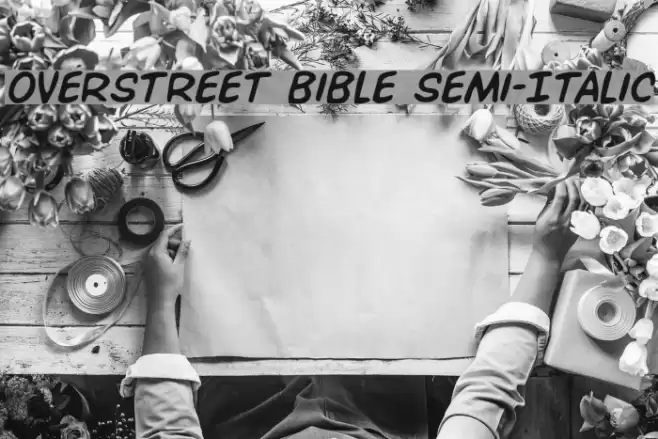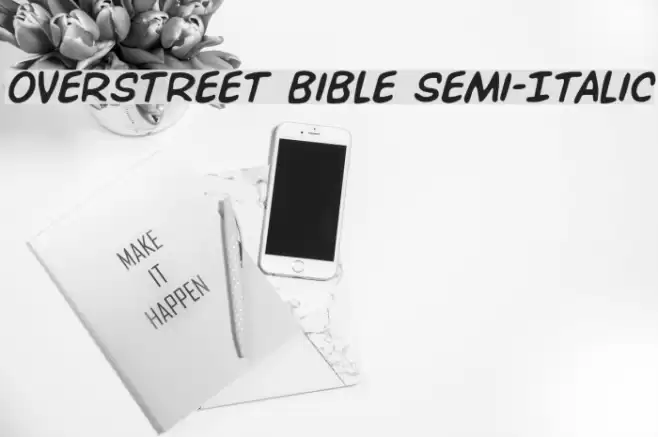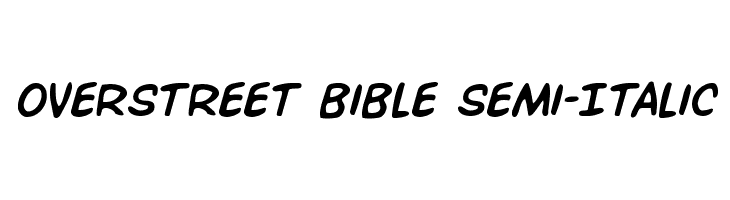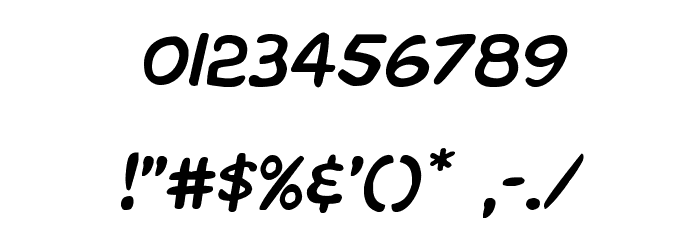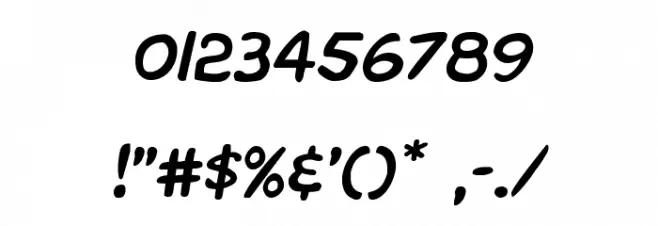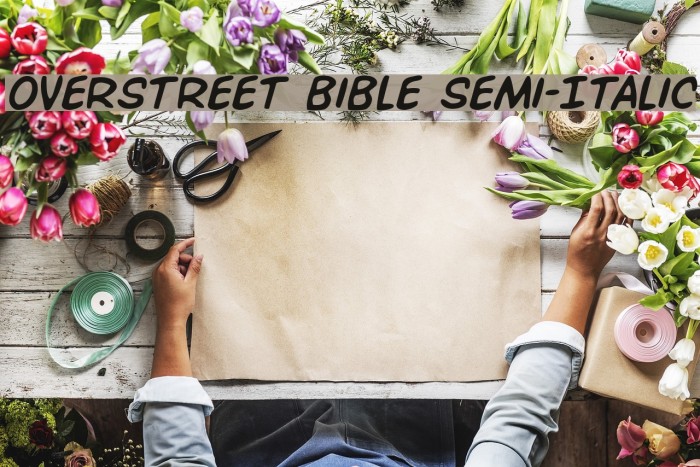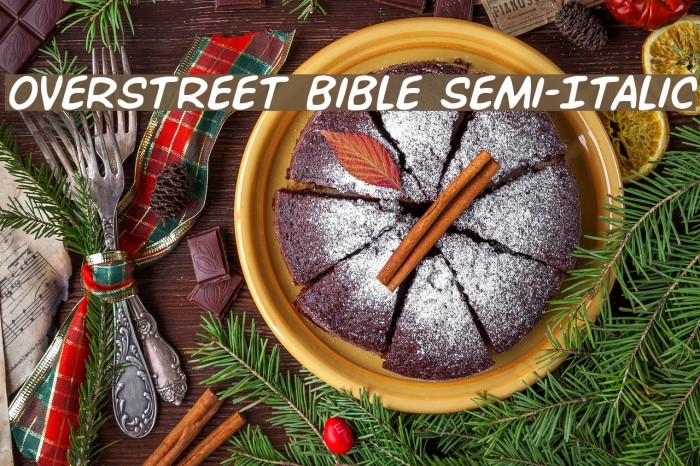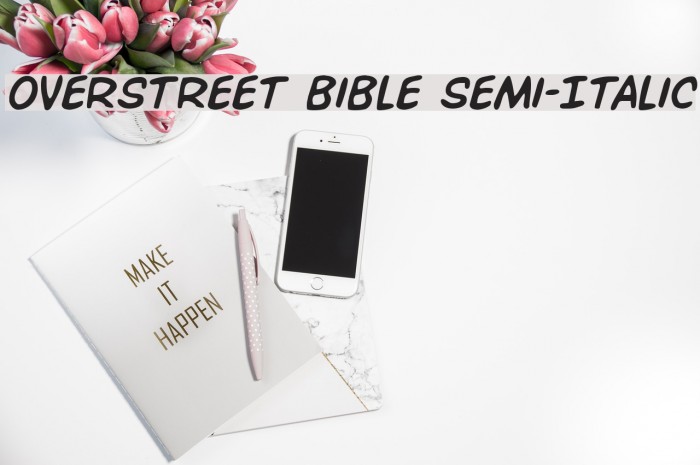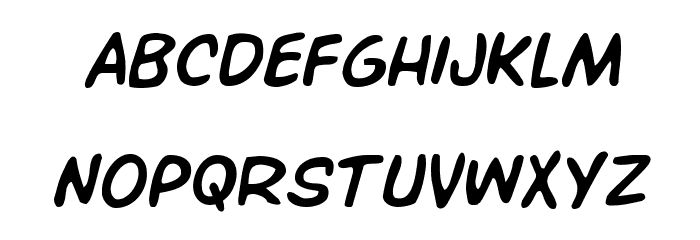
Overstreet Bible Semi-Italic Font
Overstreet Bible Semi-Italic Description
This font features a playful and dynamic style with a semi-italic slant, giving it a sense of motion and energy. The characters are bold and rounded, with a consistent stroke width that provides a uniform appearance. The uppercase and lowercase letters maintain a cohesive look, while the numerals and special characters are designed to match the overall aesthetic. This font's informal and friendly vibe makes it suitable for creative and casual applications.
A playful, semi-italic font with bold, rounded characters from Comic fonts.
- Proposed Projects: Ideal for children's books, comic strips, playful branding, and informal invitations.
- Overall Style: Playful
- Use Case: Headlines, Logos, Informal Text